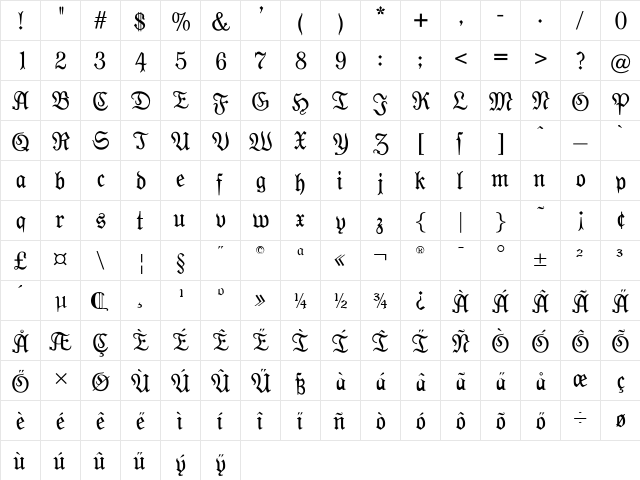
Moderne Fraktur Regular
Design Context for Moderne Fraktur Typeface
Moderne Fraktur channels the dramatic heritage of Fraktur and Gothic scripts, bringing a sense of historical gravitas to any design.
A natural fit for music packaging, gothic editorial design, and any project that needs historical weight.
Font Pairing: Pair with a clean neutral sans-serif for body copy to let Moderne Fraktur's character lead without overwhelming the composition.
Pro Tip: Reserve Moderne Fraktur for display and logo use — pair it with a clean sans-serif for body copy to prevent the composition from feeling oppressive.